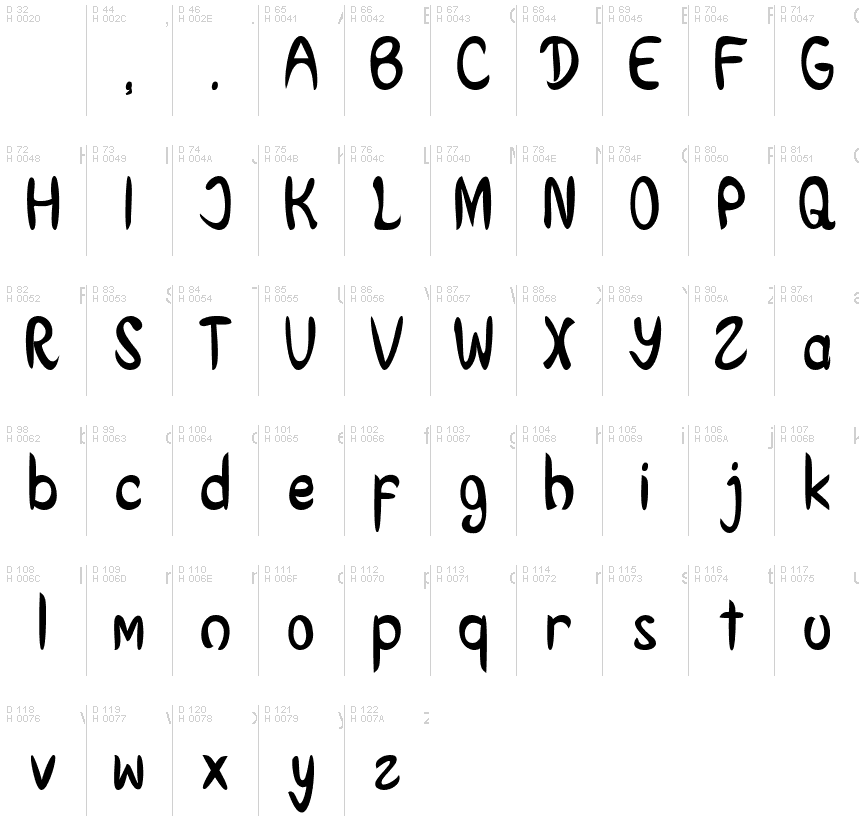
Cashfeer
Cashfeer, the playful semi-light handwritten font by Zkhai Creative, adds a unique whimsical touch to any project. Perfect for branding, packaging, invitations, and social media graphics, this font exudes personality with its imperfect curves and charming quirks. Use it for children's book covers to convey a sense of fun and wonder or on greeting cards to add a heartfelt touch. Cashfeer is also ideal for modern calligraphy projects such as quotes or wedding invitations. Let your creativity run wild with this delightful typeface that will surely catch the eye of your audience.